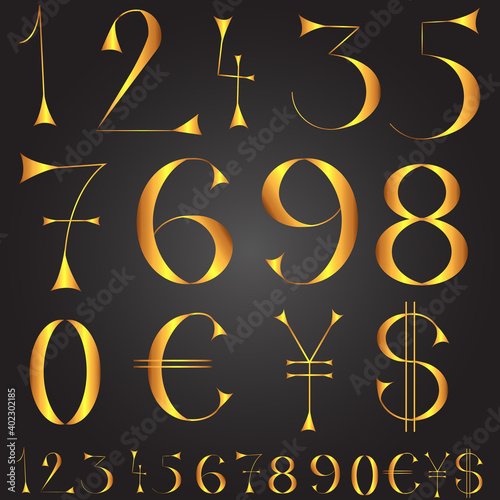
Font of numbers, hand drawn with geometric design isolated on background. For fashion magazine and magazine. Retro and vintage typographic for web site, poster, placard and card template